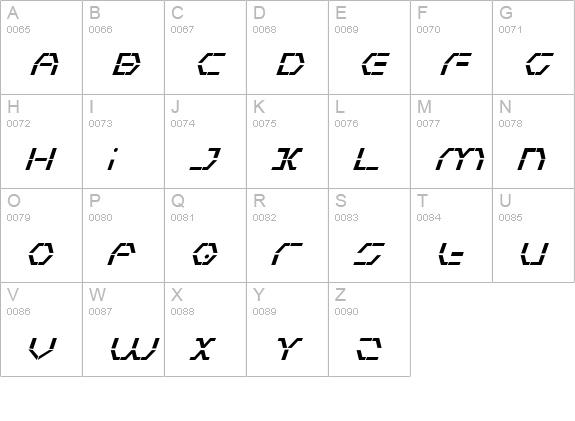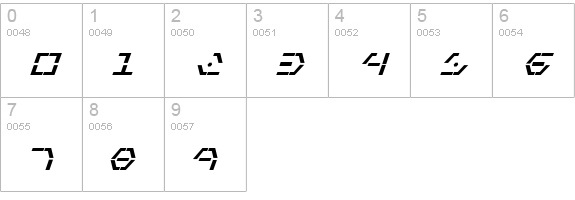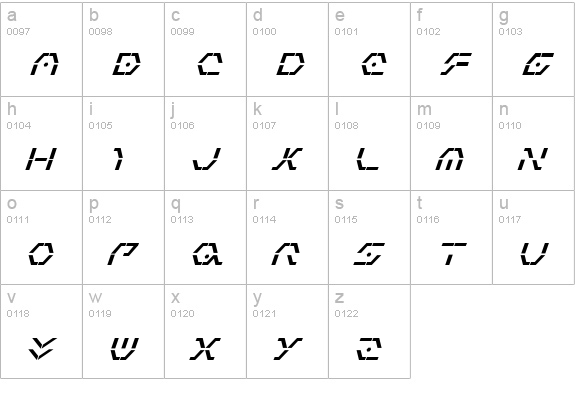
Zeta Sentry Bold Italic is a strong, high-contrast, italic variant in the Zeta typeface family \xE2\x80\x94 well suited to headlines, attention-grabbing titles, and strong calls-to-action.
Introducing Zeta Sentry Bold Italic font, a sleek and modern typeface designed to make a bold statement. The strong, italicized characters of Zeta Sentry exude confidence and sophistication, perfect for creating striking headlines and attention-grabbing designs. This versatile font is ideal for a wide range of projects, from branding and advertising to editorial layouts and web design. What sets Zeta Sentry apart is not only its bold and dynamic appearance, but also the fact that it is available for free download at FontsMarket.com. That's right, you can access this premium font without any cost, making it an excellent choice for designers looking to add a touch of style and flair to their projects without breaking the bank. With Zeta Sentry Bold Italic font, you can elevate your designs with a touch of modern elegance and professionalism. Download it for free today and unleash your creativity with this stunning typeface.